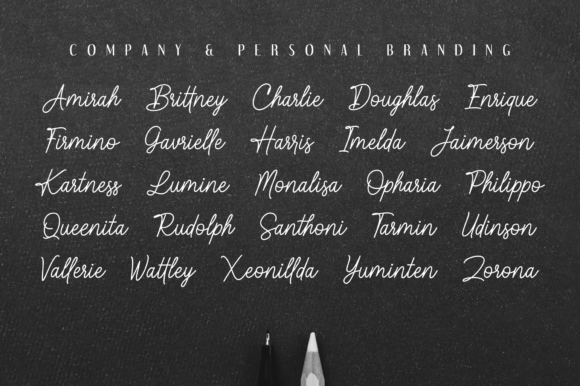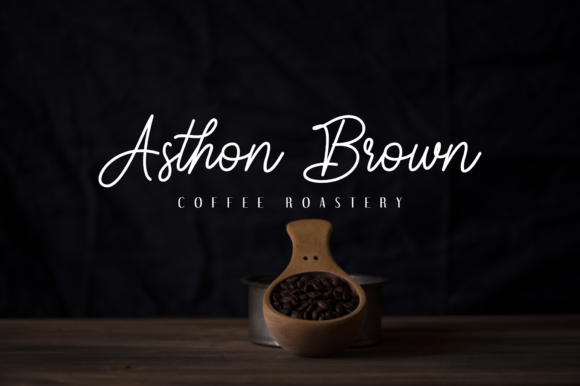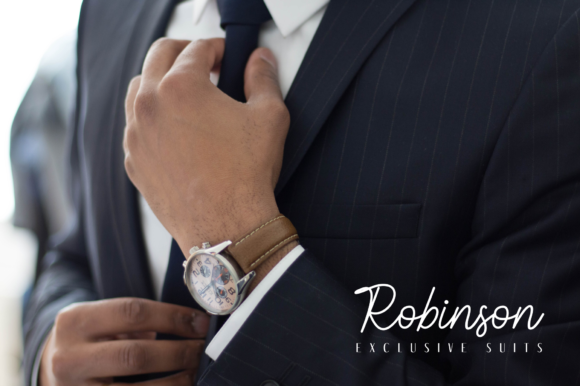
Introduction to Kaylland Font
Kaylland is a beautiful and smart handwritten font with a cool feel.
It will turn any design project into a true standout .
Key Features of Kaylland Font
Why Choose Kaylland Font?
Kaylland Font offers exceptional quality and versatility, making it a valuable addition to your design toolkit. Whether you’re creating for personal projects or commercial use, Kaylland Font delivers professional results.